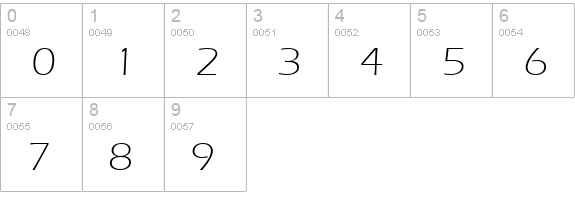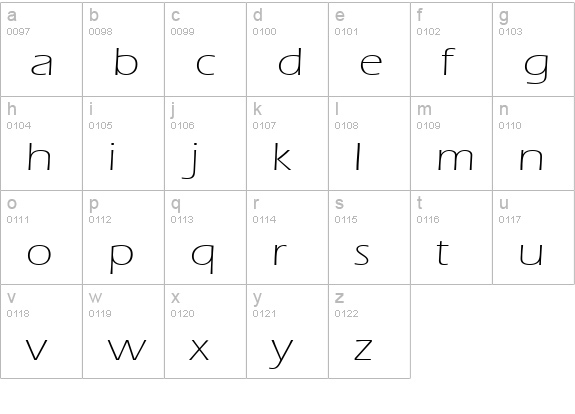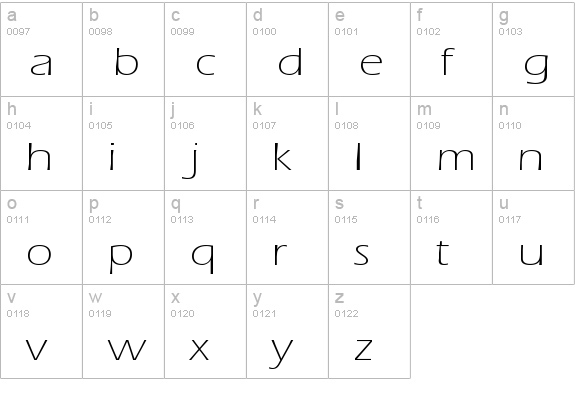
Eric Lite Extended Normal is the standard, neutral, extended-width variant in the Eric typeface family \xE2\x80\x94 well suited to general body text, paragraphs, and standard typographic work.
Eric Lite Extended Normal font is a modern and stylish typeface that exudes sophistication and elegance. With its clean lines and sleek design, this font is perfect for a wide range of creative projects, from branding to editorial design. The extended letterforms add a unique touch to any text, making it stand out with a touch of flair. Best of all, Eric Lite Extended Normal font is available for free download at FontsMarket.com. This means you can easily incorporate this versatile font into your designs without breaking the bank. Whether you're working on a professional project or a personal passion project, Eric Lite Extended Normal font is sure to elevate your work with its contemporary and eye-catching aesthetic.